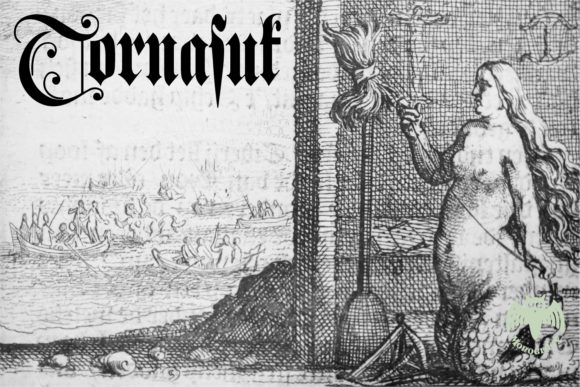
In a world teeming with digital monotony, Tornasuk emerges as a beacon of distinction, a font family poised to redefine the boundaries of creativity. With its roots firmly planted in the grandeur of the medieval era, Tornasuk unveils a captivating fusion of past and present, bringing forth a typographic masterpiece that resonates with both heritage and innovation.
As your eyes dance across the intricate curves and sharp angles of Tornasuk's characters, you'll be transported to a realm where imagination reigns supreme. Each letter, meticulously crafted by the visionary artisans at Intellecta Design, exudes a sense of timeless elegance, beckoning you to explore the depths of your creative potential.
Tornasuk's versatility transcends mere aesthetics, seamlessly adapting to a myriad of design endeavors, from branding and product packaging to invitations and posters. Its bold presence commands attention, while its inherent charm captivates hearts, making it an ideal choice for those seeking to make a lasting impression.
Step into a world where words ignite passion, where typography becomes art, and where your creative vision takes flight. Tornasuk, a blackletter font family like no other, stands ready to ignite your imagination, empowering you to craft designs that captivate and inspire.
Embrace the allure of Tornasuk and unlock a world of typographic possibilities. Let your creativity soar as you weave tales of adventure, romance, and intrigue, using a font that breathes life into every word, every sentence, every story.